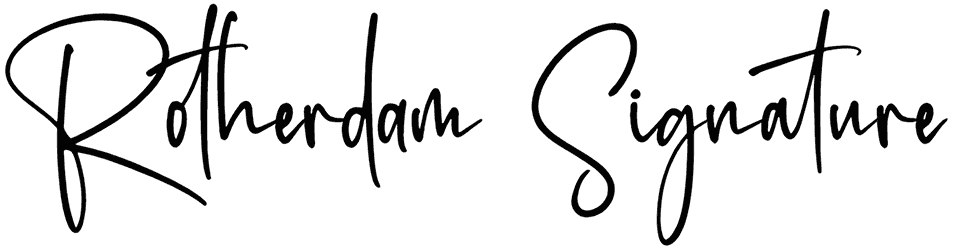
Rotherdam Signature Font
Rotherdam Signature is a completely unique and one-of-a-kind font. This signature font has a hint of mystery and a touch of class that will elevate any design. Use Rotherdam Signature to add a personal touch to your invitations, business cards, or any other design project.